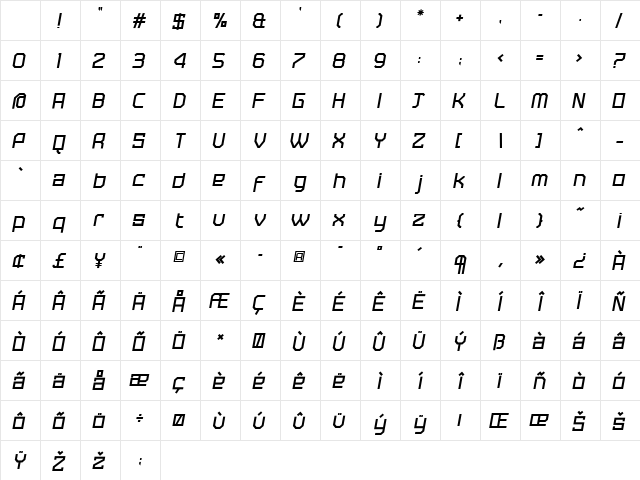
Complete Tremble Regular Italic glyph index. Displaying only characters natively supported by Tremble Regular Italic font.
Tremble is a composed and adaptable typeface that performs quietly and consistently across a wide range of design contexts. The slanted form adds forward momentum and visual energy.
Pro Tip: Use Tremble for emphasis, pull quotes, and subheadings where its slanted energy can add rhythm to the layout.